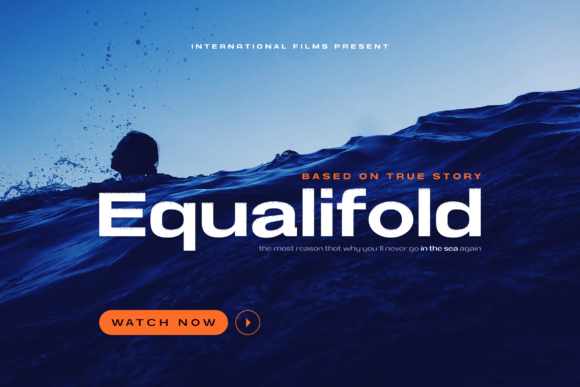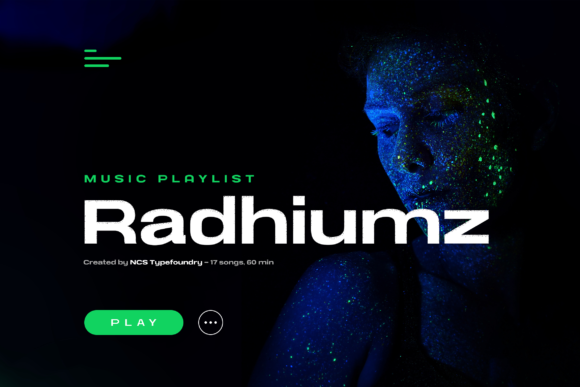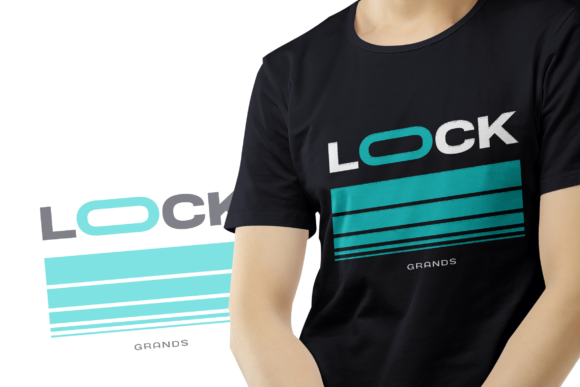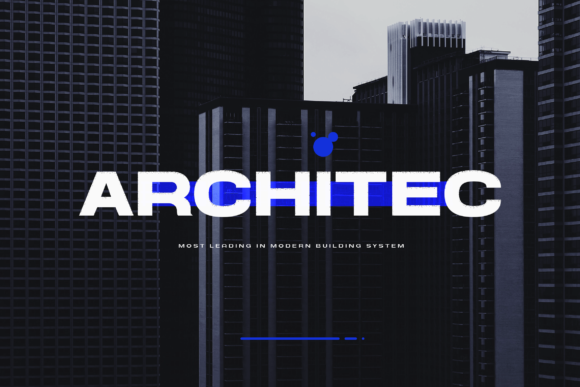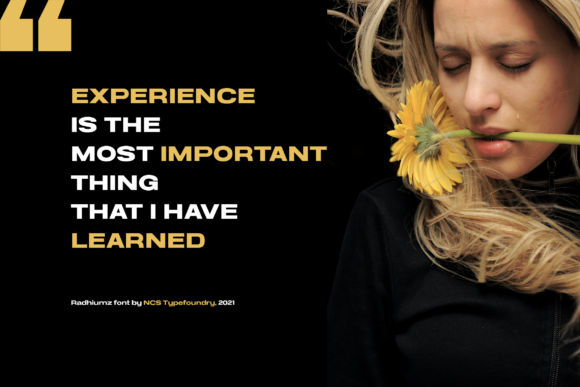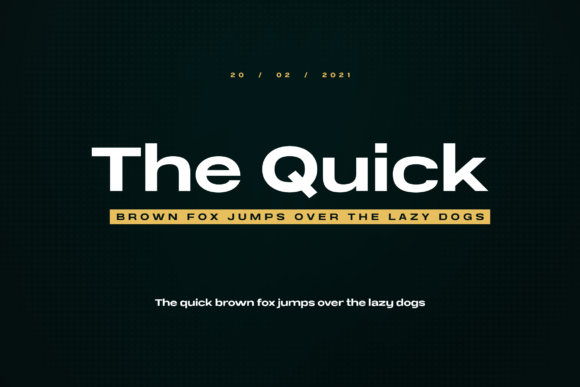
Introduction to Radhiumz Font
Have you ever stared at a blank canvas, trying to decide on the perfect font to bring your creative vision to life? It’s a moment we’ve all been there, designers and non-designers alike. But what if I told you that I’ve discovered a game-changing design resource that’s sure to elevate your next project?
Enter the Radhiumz Font, a sleek and modern sans serif font that’s perfect for any creative endeavor. With its clean lines and minimalist aesthetic, Radhiumz Font is the ultimate design companion for any project that requires a touch of sophistication and elegance.
Key Features of Radhiumz Font
- Unique, modern font with a transparent background, ideal for backgrounds, overlays, and other design elements.
- Radhiumz Font is a versatile design resource that can be used for a wide range of creative projects, from branding and marketing materials to digital art and graphic design.
Honest Review: Radhiumz Font
I recently had the chance to try out the Radhiumz Font and I must say, it’s been a game-changer for my design projects. The high quality of this font is undeniable, and it’s perfect for anyone looking to add a touch of elegance to their creative project.
- ✨ High-quality design: The Radhiumz Font is incredibly well-designed and has a unique aesthetic that’s sure to catch attention.
- ✨ Versatile: This font is perfect for a wide range of design projects, from logos to business cards and even websites.
- ⚠️ Limited character set: While the Radhiumz Font has a wide range of glyphs, it’s not a complete character set, which may be a issue for some designers.
- ⚠️ Not ideal for small text: Due to its unique design, the Radhiumz Font may not be the best choice for small text or headings.
Overall, I’m impressed with the Radhiumz Font and would definitely recommend it to designers looking for a high-quality, free design resource with a transparent background.
Tips for Getting the Most Out of Radhiumz Font
To get the most out of Radhiumz Font, use it with a transparent background to create a seamless design. You can also experiment with different font sizes and styles to achieve the desired effect.
Radhiumz Font is ideal for various design projects, including:
- Infographics and visualizations
- Print and digital marketing materials